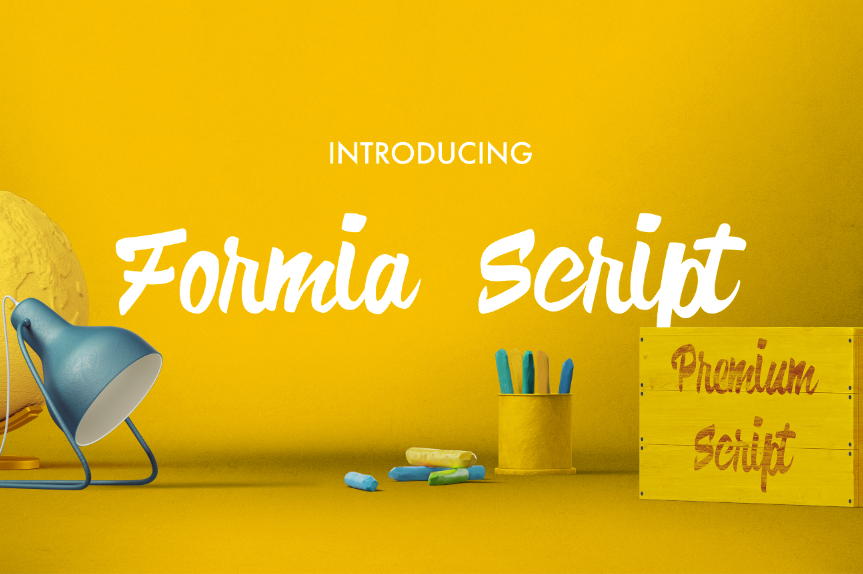
FREE Formia Script font
Formia Script is a handwritten typeface specially crafted for your projects. This font is 100% based on brush trace and it has special ligatures to combine the letters in a nice way.